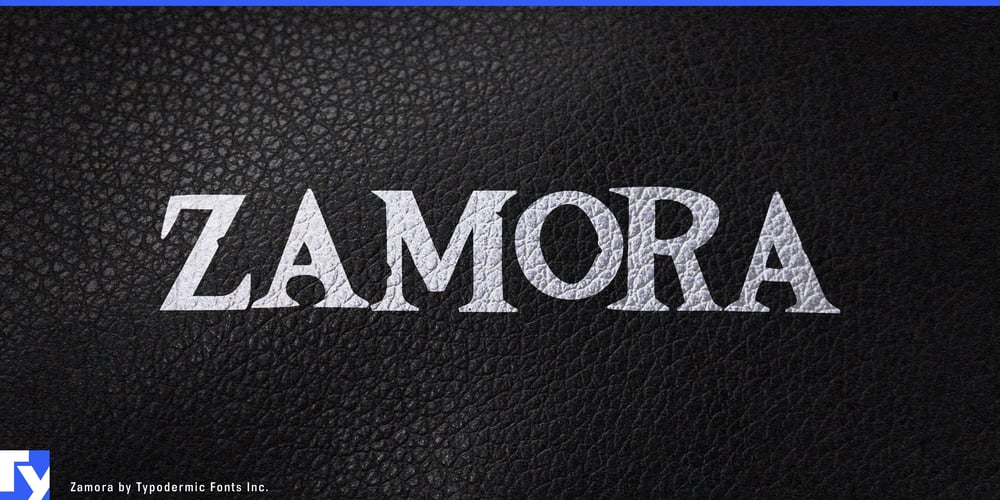
Zamora
Zamora font
Zamora Font Family was designed by Ray Larabie and published by Typodermic. Zamora contains 1 styles and family package options. Introducing Zamora, the typeface that embodies the grit and determination of the open road. With its cracked finish and sharp Latin serifs, it’s a font that commands attention and respect. Each cut and scratch on the surface of Zamora is like a battle scar, a testament to the font’s toughness and resilience. Zamora is not just any typeface. It’s a font with a history, a story that’s written into every curve and corner. The sharp Latin serifs give Zamora a strong foothold, and the slew of ligatures that come with it give text a natural, unpredictable appearance, like the twists and turns of a winding mountain road. So whether you’re designing a poster for a rockabilly concert, creating a logo for a biker gang, or just looking to add a touch of rebel flair to your work, Zamora is the font for you. Most Latin-based European writing systems are supported, including the following languages. Afaan Oromo, Afar, Afrikaans, Albanian, Alsatian, Aromanian, Aymara, Bashkir (Latin), Basque, Belarusian (Latin), Bemba, Bikol, Bosnian, Breton, Cape Verdean, Creole, Catalan, Cebuano, Chamorro, Chavacano, Chichewa, Crimean Tatar (Latin), Croatian, Czech, Danish, Dawan, Dholuo, Dutch, English, Estonian, Faroese, Fijian, Filipino, Finnish, French, Frisian, Friulian, Gagauz (Latin), Galician, Ganda, Genoese, German, Greenlandic, Guadeloupean Creole, Haitian Creole, Hawaiian, Hiligaynon, Hungarian, Icelandic, Ilocano, Indonesian, Irish, Italian, Jamaican, Kaqchikel, Karakalpak (Latin), Kashubian, Kikongo, Kinyarwanda, Kirundi, Kurdish (Latin), Latvian, Lithuanian, Lombard, Low Saxon, Luxembourgish, Maasai, Makhuwa, Malay, Maltese, Māori, Moldovan, Montenegrin, Ndebele, Neapolitan, Norwegian, Novial, Occitan, Ossetian (Latin), Papiamento, Piedmontese, Polish, Portuguese, Quechua, Rarotongan, Romanian, Romansh, Sami, Sango, Saramaccan, Sardinian, Scottish Gaelic, Serbian (Latin), Shona, Sicilian, Silesian, Slovak, Slovenian, Somali, Sorbian, Sotho, Spanish, Swahili, Swazi, Swedish, Tagalog, Tahitian, Tetum, Tongan, Tshiluba, Tsonga, Tswana, Tumbuka, Turkish, Turkmen (Latin), Tuvaluan, Uzbek (Latin), Venetian, Vepsian, Võro, Walloon, Waray-Waray, Wayuu, Welsh, Wolof, Xhosa, Yapese, Zapotec Zulu and Zuni.